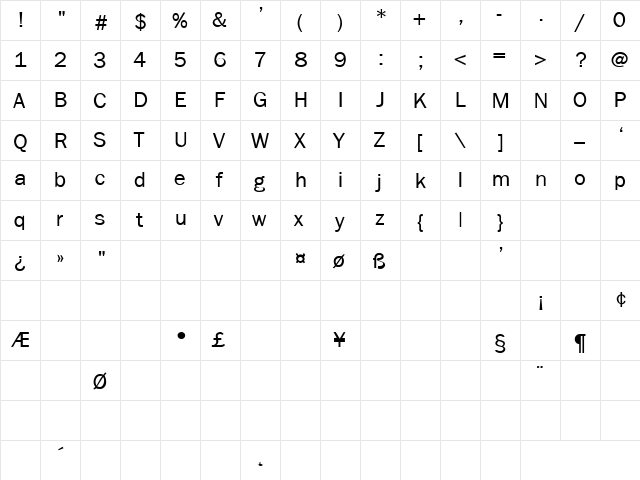
Breakdown 1 Regular Font Preview
Breakdown 1 Regular
Breakdown 1 Regular Font Details
Design Context for Breakdown 1 Typeface
Breakdown 1 is a composed and adaptable typeface that performs quietly and consistently across a wide range of design contexts.